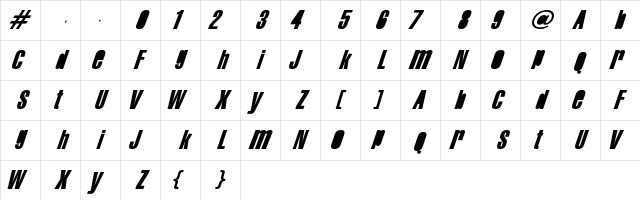
Swis AntiNormal Condensed Normal
Design Context for Swis AntiNormal Condensed Typeface
Swis AntiNormal Condensed is a composed and adaptable typeface that performs quietly and consistently across a wide range of design contexts. The condensed width makes it efficient for tight spaces without sacrificing legibility.